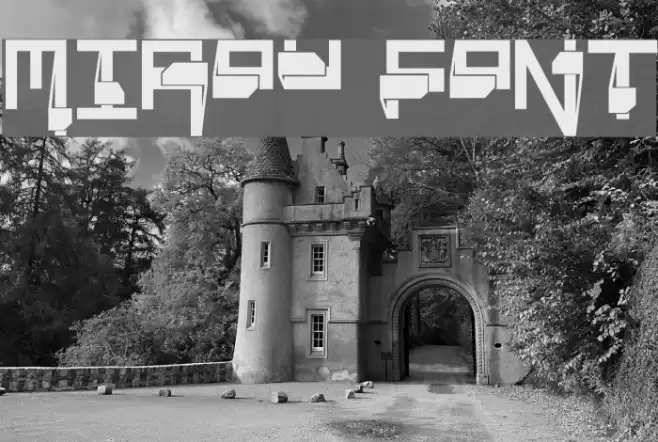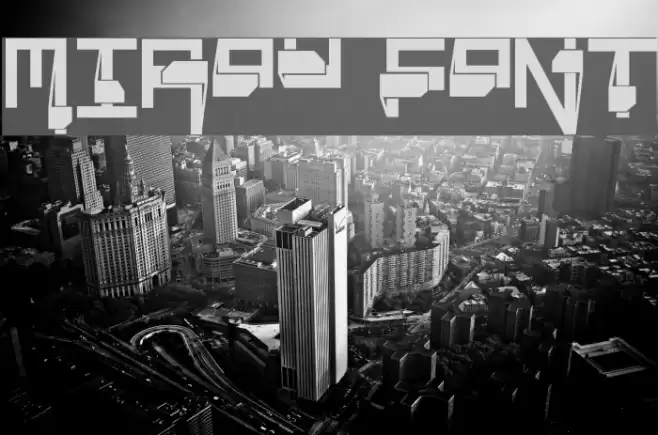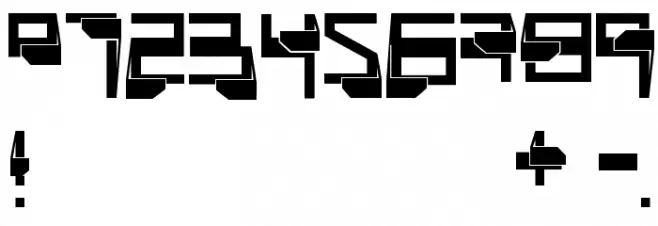
Miaou Font
Miaou Description
This font features a bold, futuristic design with a distinctly geometric and angular appearance. Each character is crafted with sharp edges and a blocky structure, giving it a digital or sci-fi aesthetic. The uppercase and lowercase letters maintain a consistent style, emphasizing uniformity and cohesion across the alphabet. Numbers and special characters follow the same design principles, ensuring a seamless integration within any text. The font's unique style makes it stand out, ideal for projects that require a modern and edgy look.
A bold, geometric font with a futuristic and angular design from Uncategorized fonts.
- Proposed Projects: Ideal for sci-fi themed projects, digital art, video game interfaces, and modern branding.
- Overall Style: Futuristic